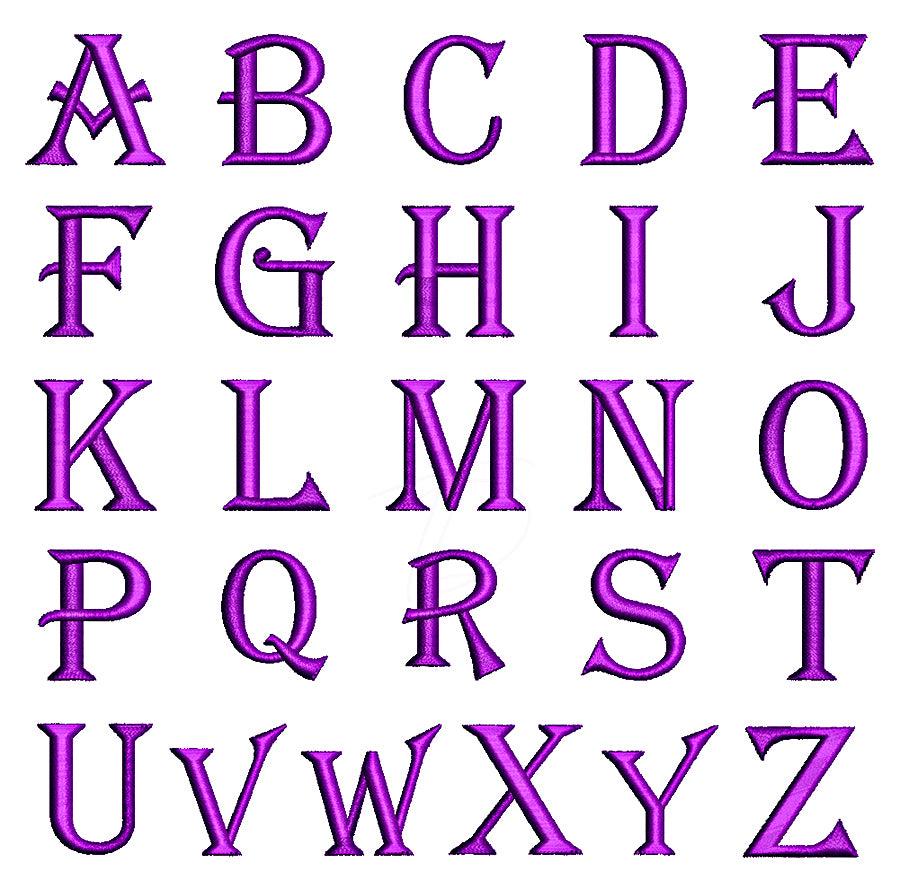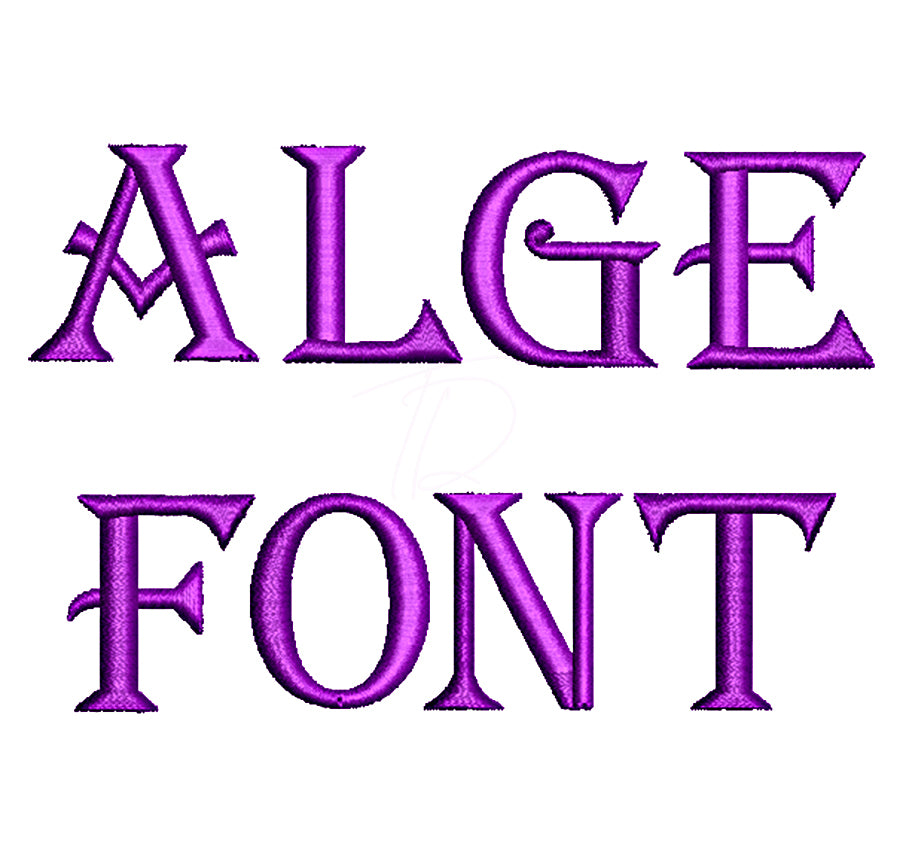
Algerian 3D Puff Embroidery Font
Make a bold statement with the Algerian 3D Puff Embroidery Font — a striking, decorative font with ornate detailing, engineered specifically for 3D puff foam embroidery. 🔥🧵
The Algerian style's strong, distinctive letterforms gain incredible depth and presence when stitched over puff foam, making it a standout choice for snapback hats, beanies, varsity jackets, and streetwear apparel.
- Optimized for 3D puff foam — higher stitch density and underlay included
- Includes full alphabet (A–Z) and numbers
- Best results at larger sizes (1" and above) for maximum puff effect
- Perfect for hats, caps, beanies, and structured garments